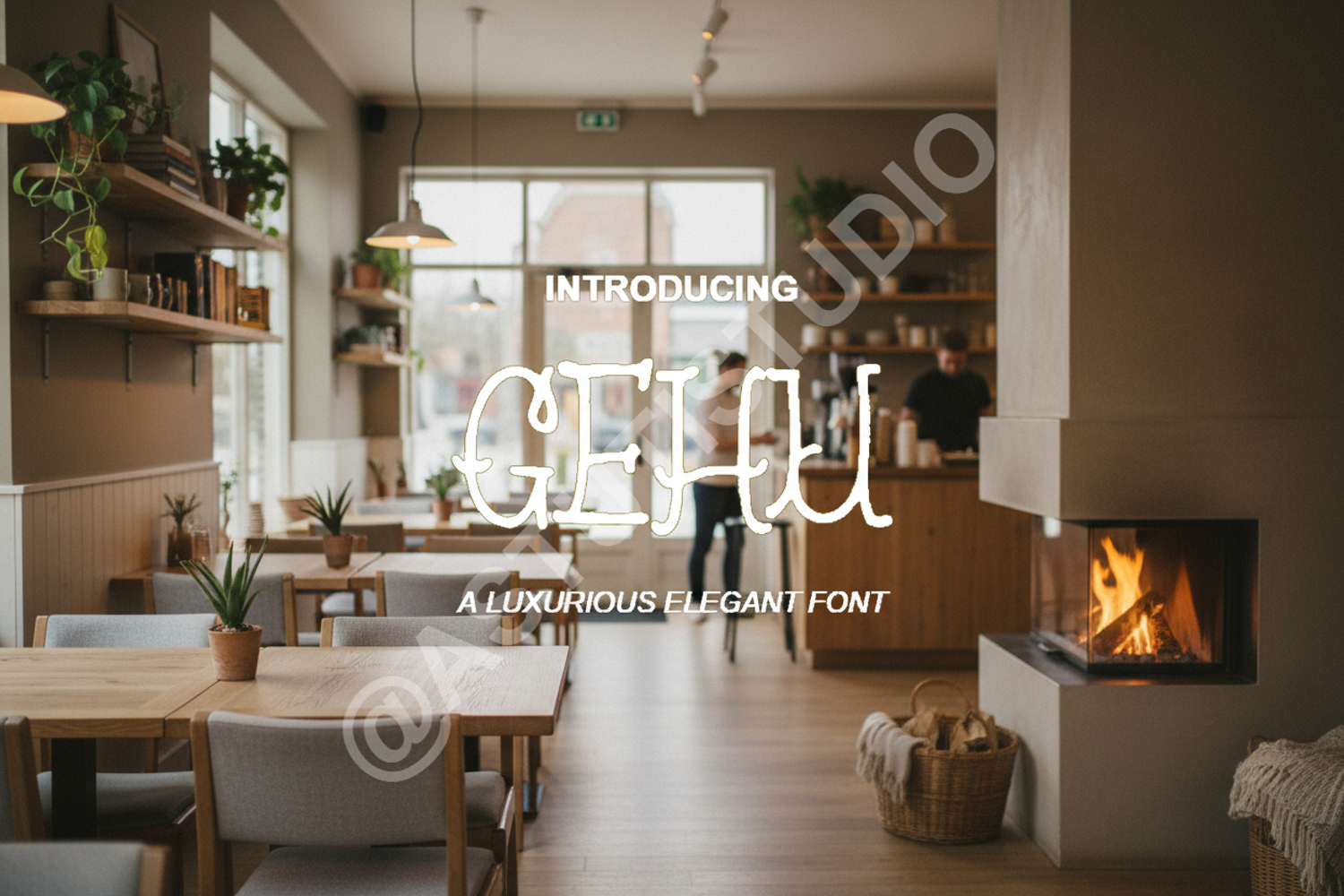
Gehu - Elegant Modern Serif Font
Gehu
Gehu is a premium serif font that embodies sophistication and modern elegance. Designed with clean lines and balanced proportions, Gehu offers a timeless aesthetic that elevates any creative project. Whether you are crafting a luxury brand identity or a minimalist editorial layout, this font provides the versatility and professional polish required for high-end design.
- Luxury Branding and Logo Design
- Elegant Wedding Invitations and Stationery
- High-end Editorial and Magazine Layouts
- Sophisticated Social Media Graphics
- Modern Packaging and Product Labels
- Professional Website Typography